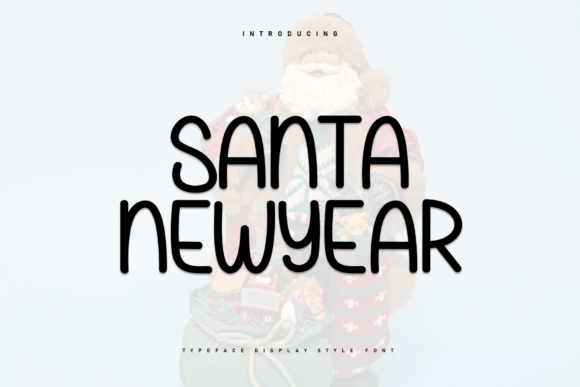
Santa Newyear Font: The Perfect Blend of Modern Simplicity and Playful Charm
When it comes to choosing the right font for your design project, it’s essential to consider the tone and personality you want to convey. If you’re looking for a font that blends modern simplicity with a playful, approachable vibe, then Santa Newyear Font is an excellent choice. This casual display font is designed to capture the charm of relaxed design while maintaining clarity and style, making it ideal for a wide range of applications, from posters and branding to packaging and social media graphics.
What is Santa Newyear Font?
Santa Newyear Font is a carefully crafted display font that boasts clean shapes, soft edges, and well-balanced letterforms. Its modern simplicity and playful charm make it an excellent choice for designers who want to add a fresh and friendly touch to their projects. The font’s versatility and eye-catching appeal make it perfect for a variety of design applications, including:
- Posters and flyers
- Branding and logos
- Packaging and labels
- Social media graphics and posts
Key Features of Santa Newyear Font
Santa Newyear Font has several key features that make it an excellent choice for designers. Some of its notable features include:
- Clean shapes: The font features clean and simple shapes that give it a modern and sleek look.
- Soft edges: The soft edges of the font add a touch of playfulness and approachability, making it perfect for designs that require a friendly tone.
- Well-balanced letterforms: The font’s letterforms are carefully crafted to be well-balanced, ensuring that the text is easy to read and understand.
- Versatility: The font is versatile and can be used in a variety of design applications, from posters and branding to packaging and social media graphics.
- Eye-catching appeal: The font’s unique design makes it stand out, adding an eye-catching appeal to any design project.
Benefits of Using Santa Newyear Font
Using Santa Newyear Font in your design project offers several benefits, including:
- Improved readability: The font’s clean shapes and well-balanced letterforms make it easy to read and understand, even at small sizes.
- Increased personality: The font’s playful and approachable vibe adds a touch of personality to any design project, making it more engaging and memorable.
- Versatility: The font can be used in a variety of design applications, making it a great addition to any designer’s toolkit.
- Time-saving: The font’s unique design makes it easy to create professional-looking designs quickly and efficiently, saving designers time and effort.
How to Use Santa Newyear Font in Your Design Project
Using Santa Newyear Font in your design project is easy. Here are some tips to get you started:
- Choose the right size: The font is designed to be used at larger sizes, making it perfect for posters, branding, and packaging. However, it can also be used at smaller sizes for social media graphics and other applications.
- Experiment with colors: The font’s clean shapes and soft edges make it easy to pair with a variety of colors. Experiment with different color combinations to find the one that works best for your design project.
- Use it with other fonts: The font’s versatility makes it easy to pair with other fonts. Experiment with different font combinations to create a unique and visually appealing design.
Santa Newyear Font is a versatile and eye-catching display font that blends modern simplicity with a playful, approachable vibe. Its clean shapes, soft edges, and well-balanced letterforms make it perfect for a wide range of design applications, from posters and branding to packaging and social media graphics. With its improved readability, increased personality, and versatility, Santa Newyear Font is an excellent addition to any designer’s toolkit.
- What is Santa Newyear Font? Santa Newyear Font is a casual display font that blends modern simplicity with a playful, approachable vibe.
- What is Santa Newyear Font used for? Santa Newyear Font is ideal for posters, branding, packaging, and social media graphics.
- Is Santa Newyear Font easy to read? Yes, Santa Newyear Font is designed to be easy to read and understand, even at small sizes.
- Can I use Santa Newyear Font with other fonts? Yes, Santa Newyear Font is versatile and can be paired with other fonts to create a unique and visually appealing design.